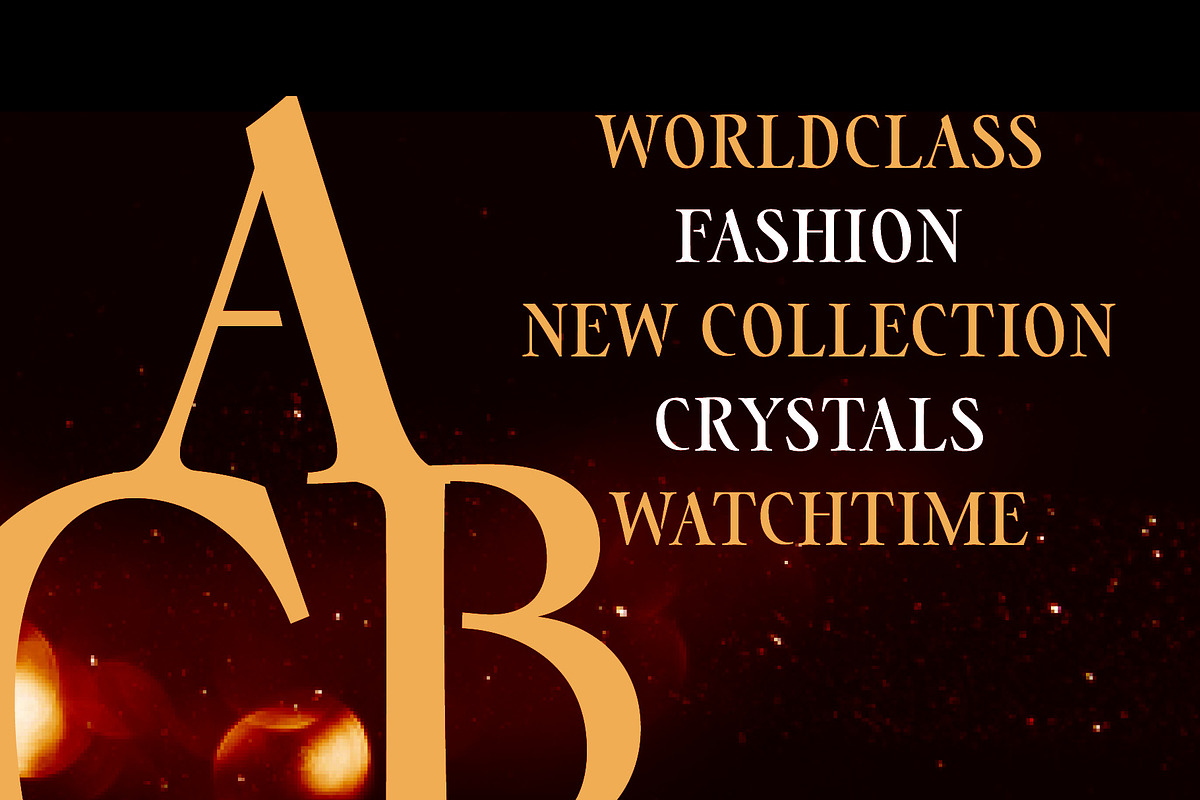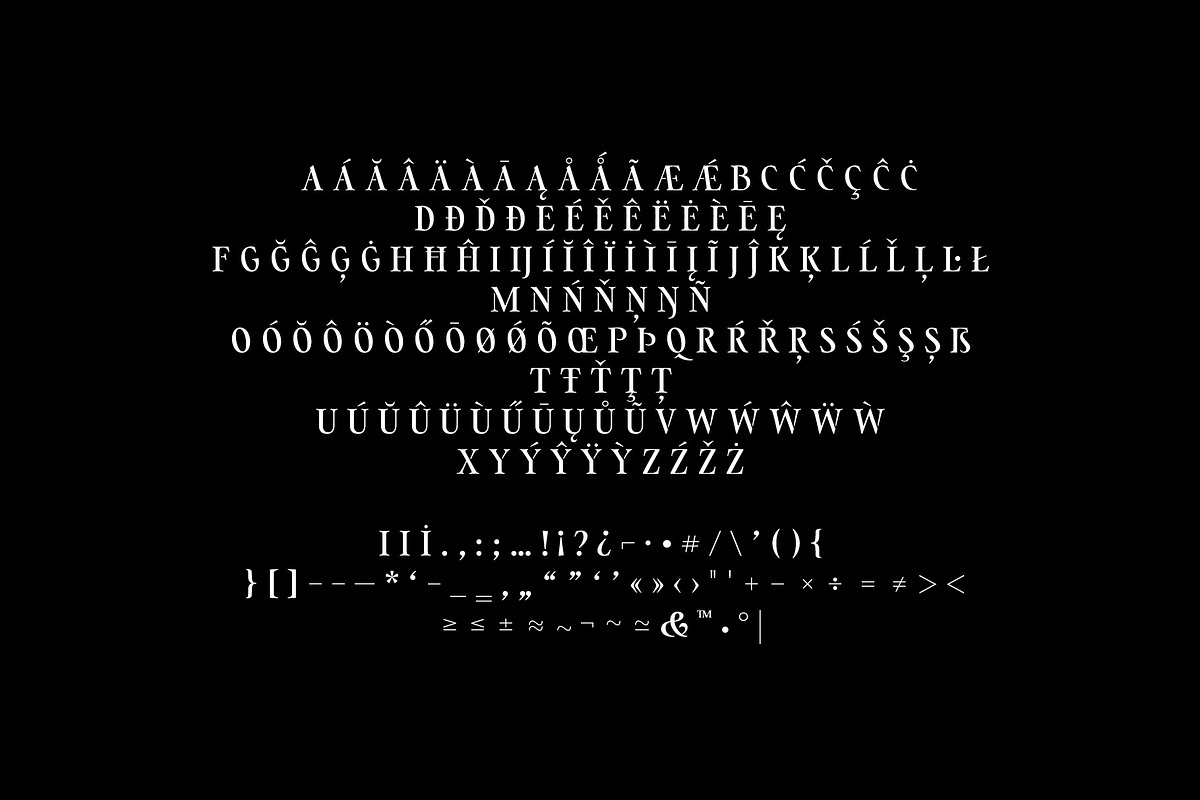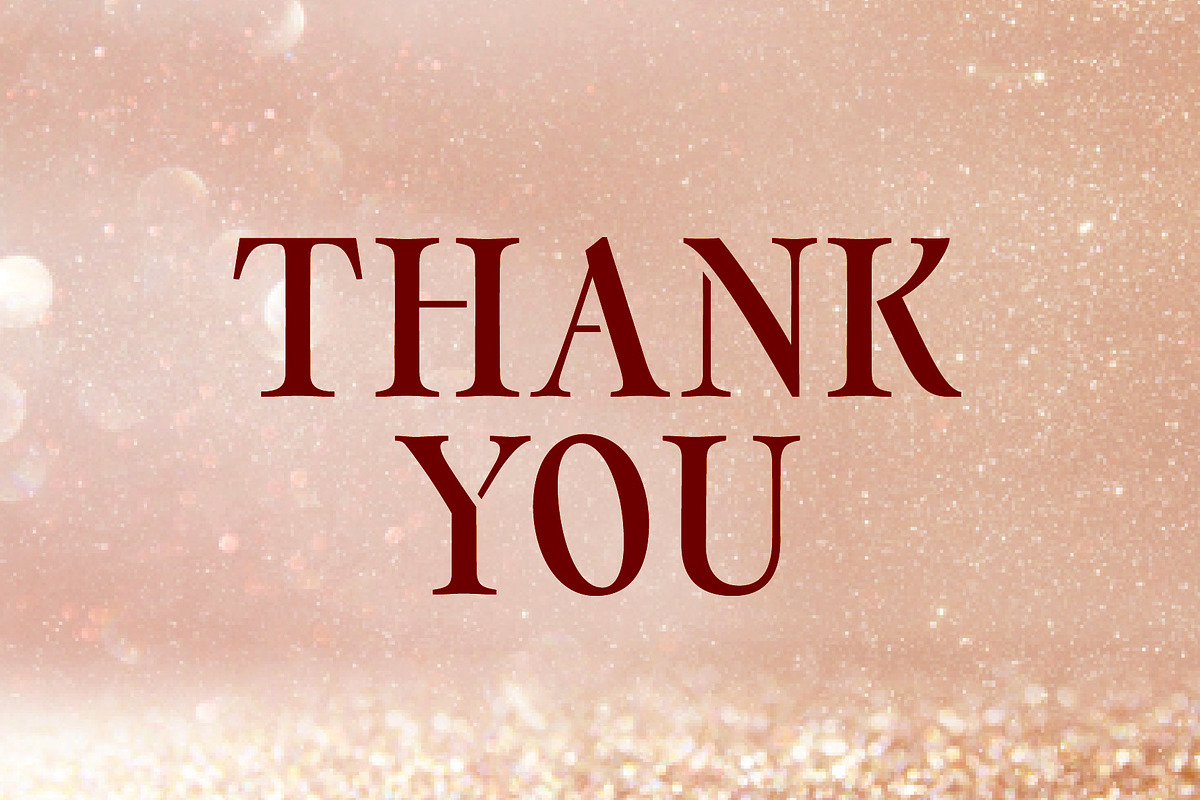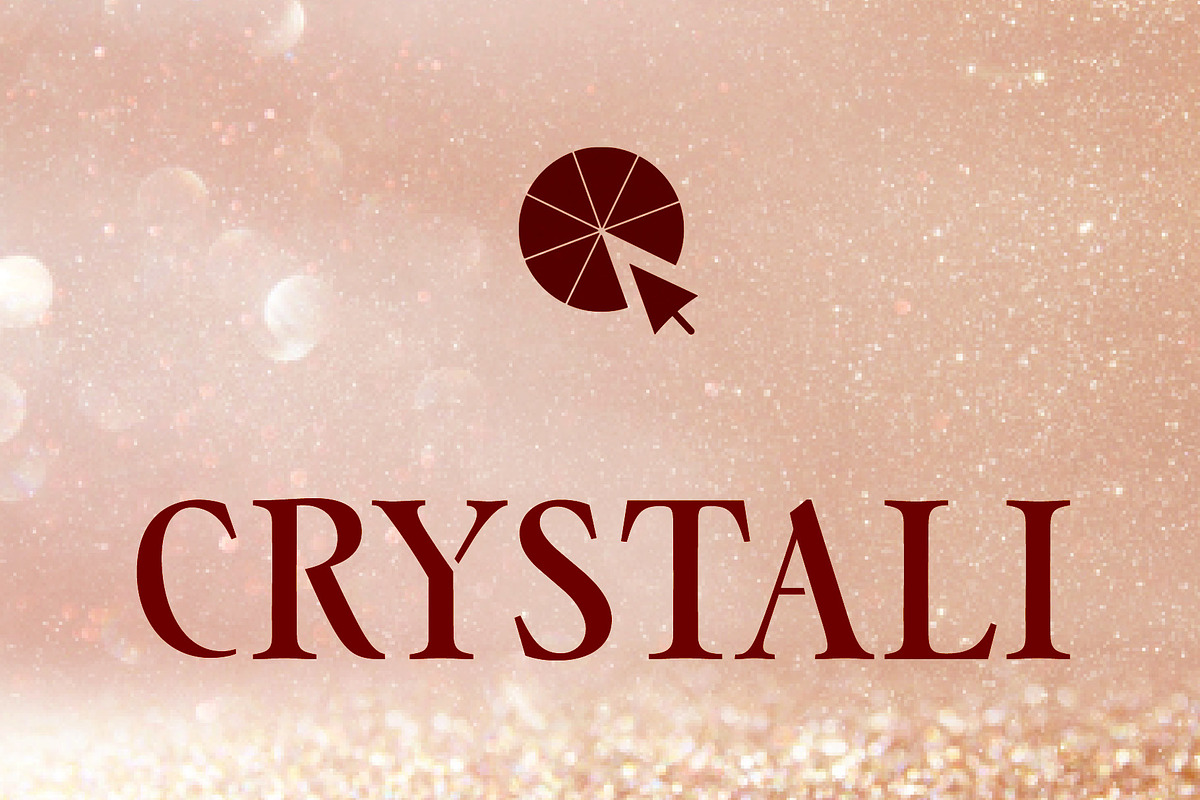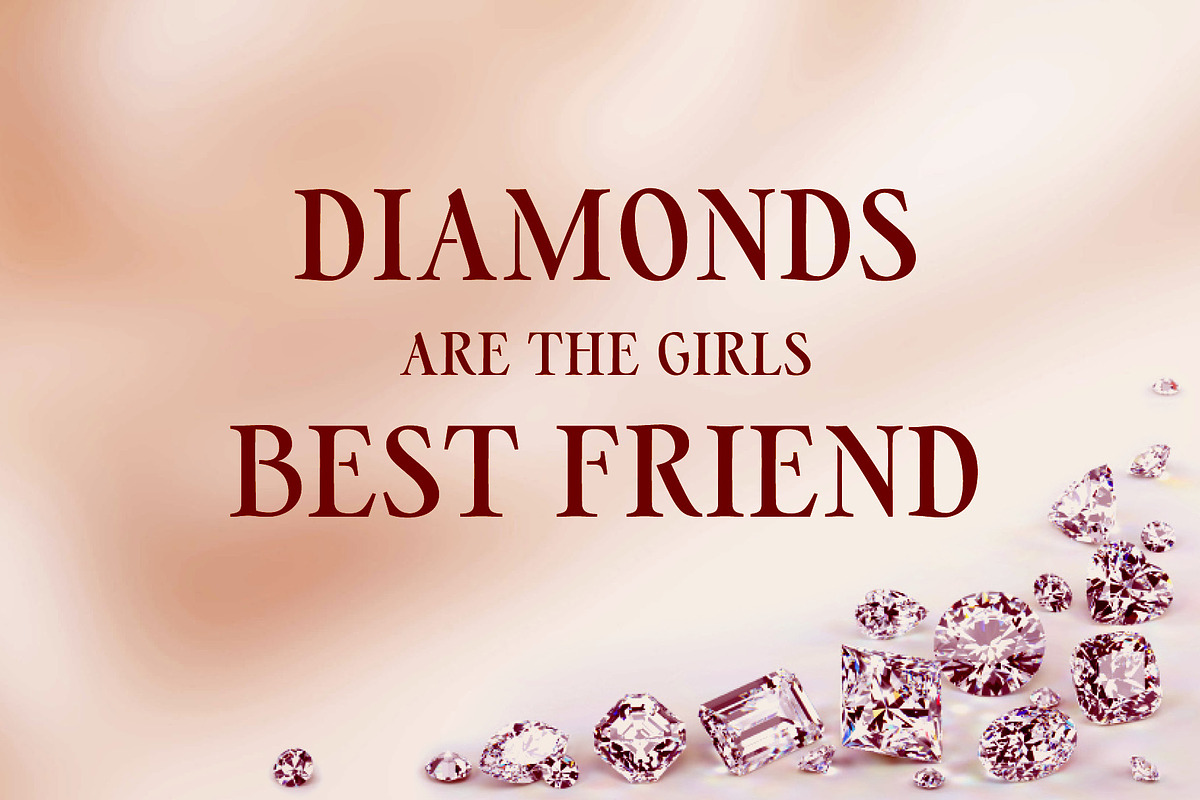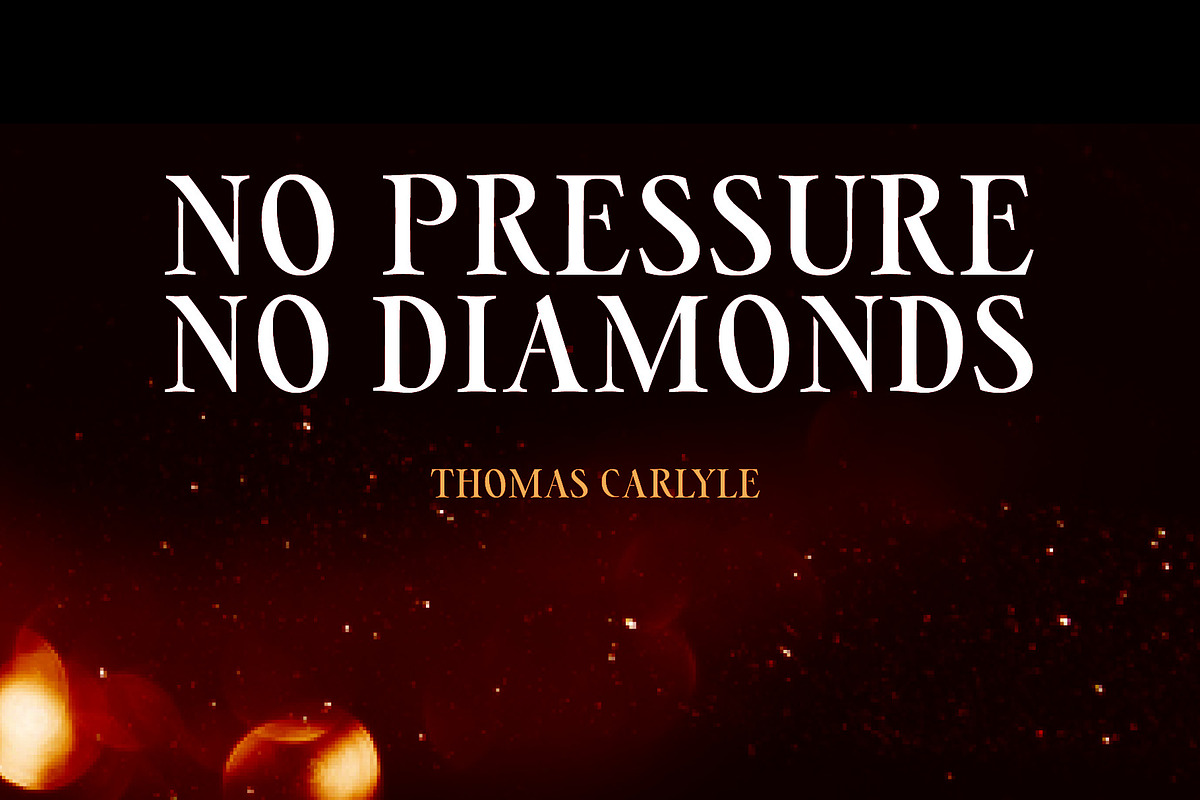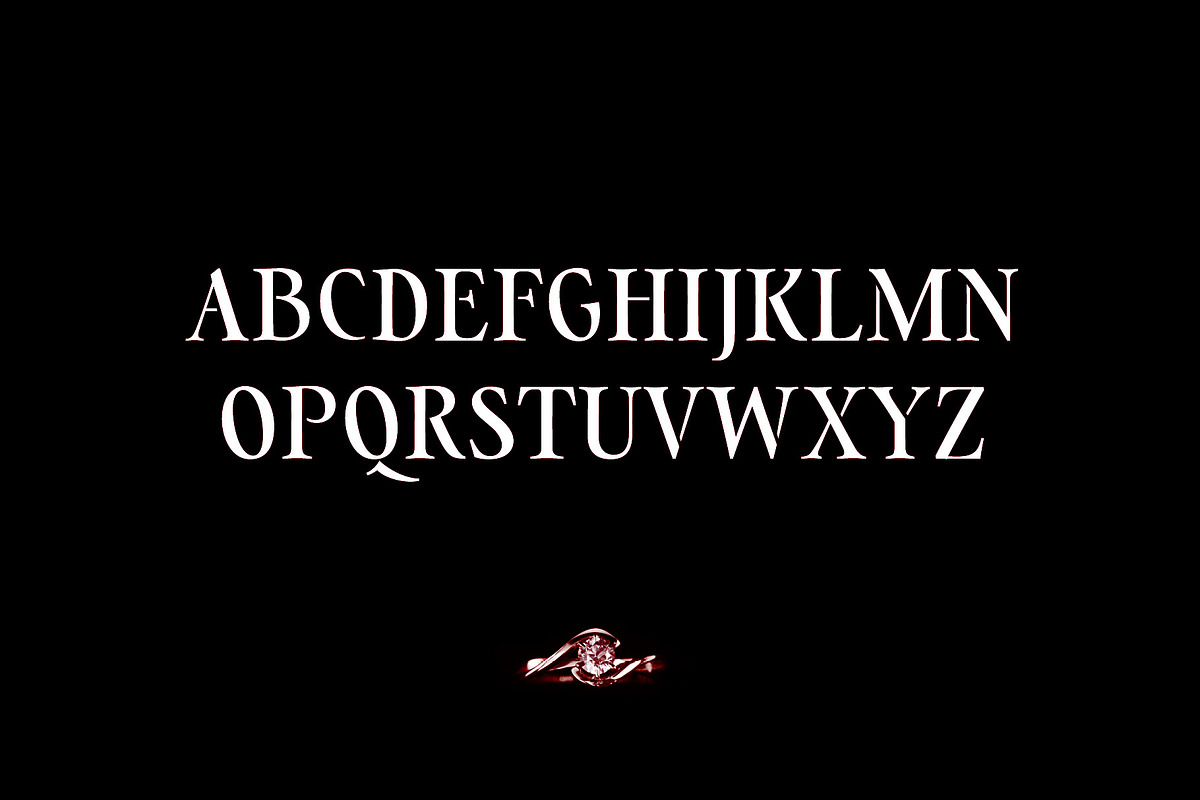
Crystalia Beautiful Headlines
I am happy to announce our new font offer: Crystalia.
Crystalia is the little treasure font for your luxury headlines and only that. Topics are matching well are all things that you would consider beautiful. Lift up your brand with this outstanding font of beauty.